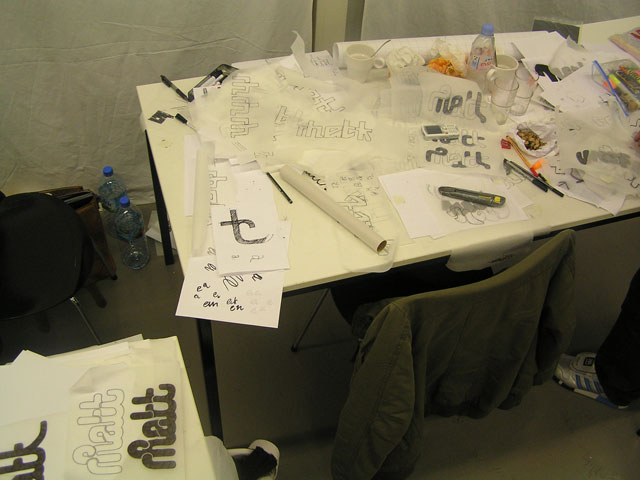
Although we didn't get to know the alternative side of the German kitchen (nobody managed to get hold of a real classic Mett-Igel), the energy level was still high on the second day. Would everybody manage to create a lettering which can be read in different ways? It turned out that some self defined problems were easier to solve than others. Within such a limited time-frame, you also need a bit of luck with the chosen words. 'Apfel/Birne' turned out to provide more typographic possibilities than 'Mett/Hack' for example. Nevertheless, in the end of the day everybody presented their products with its new label.